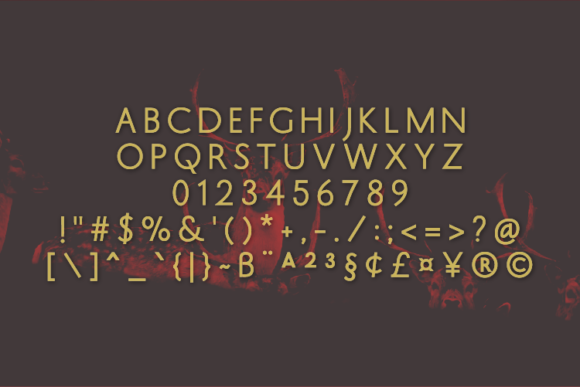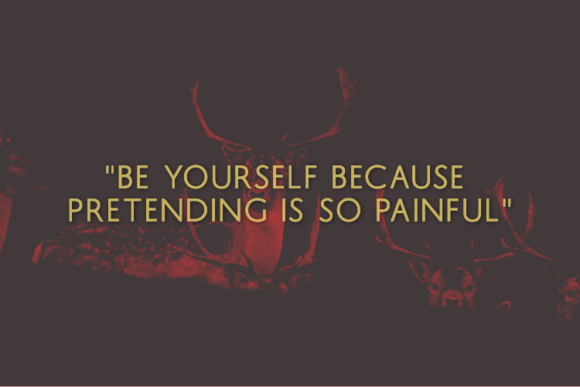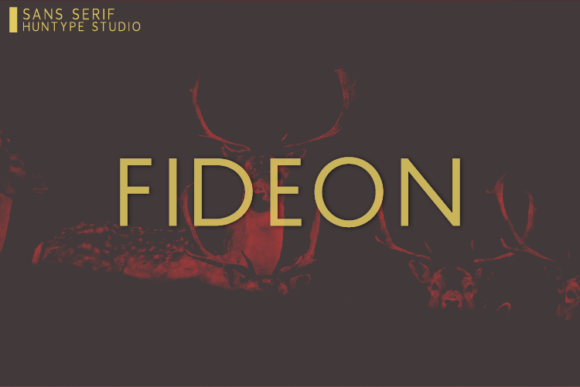
Fideon Font: The Ultimate Modern Sans Serif for Designers and Crafters
In the world of typography, fonts play a crucial role in conveying messages, expressing emotions, and creating visual identities. For designers and crafters, finding the perfect font can be a daunting task, especially when it comes to creating modern and clean designs. This is where Fideon Font comes in – a versatile and sleek sans serif font that is perfect for a wide range of applications.
What is Fideon Font?
Fideon is a modern and clean sans serif font that boasts smooth and clean lines, with just a touch of contrast. Its simplicity and elegance make it an excellent choice for various design projects, from logos and branding to web headings and more. The font’s versatility is one of its standout features, allowing it to adapt seamlessly to different contexts and styles.
Key Features of Fideon Font
• Modern and Clean Design: Fideon Font features a sleek and contemporary design that is perfect for modern brands and designs.
• Sans Serif: The font’s sans serif style ensures that it remains clean and uncluttered, making it ideal for digital and print applications.
• Smooth Lines and Contrast: Fideon’s smooth lines and subtle contrast add a touch of sophistication and elegance to any design.
• Versatile: The font’s versatility makes it suitable for a wide range of applications, from logos and branding to web headings and more.
Use Cases for Fideon Font
Fideon Font is an excellent choice for various design projects, including:
• Logos and Branding: Create a lasting impression with Fideon’s clean and modern design, perfect for logos, business cards, and brand guidelines.
• Web Headings: Use Fideon to create stunning web headings that are both visually appealing and easy to read.
• Print Materials: Fideon is suitable for print materials such as brochures, flyers, and posters, where its clean design and smooth lines can shine.
• Digital Media: The font is perfect for digital media, including social media graphics, presentations, and more.
Benefits of Using Fideon Font
By choosing Fideon Font for your design projects, you can enjoy several benefits, including:
• Improved Readability: Fideon’s clean design and smooth lines ensure that your text is easy to read and understand.
• Enhanced Visual Appeal: The font’s modern and elegant design adds a touch of sophistication to any design.
• Flexibility: Fideon’s versatility makes it suitable for a wide range of applications and design styles.
• Time-Saving: With Fideon, you can create professional-looking designs quickly and efficiently, saving you time and effort.
Tips for Using Fideon Font Effectively
To get the most out of Fideon Font, consider the following tips:
• Experiment with Font Sizes: Fideon works well in various font sizes, so experiment to find the perfect size for your design.
• Pair with Other Fonts: Combine Fideon with other fonts to create a unique and visually appealing design.
• Adjust Line Spacing: Adjust the line spacing to ensure that your text is easy to read and understand.
• Use Color Effectively: Use color to enhance your design and make it more visually appealing.
Fideon Font is an excellent choice for designers and crafters looking for a modern and clean sans serif font. Its versatility, smooth lines, and subtle contrast make it perfect for a wide range of applications, from logos and branding to web headings and more. By choosing Fideon, you can create professional-looking designs that are both visually appealing and easy to read.